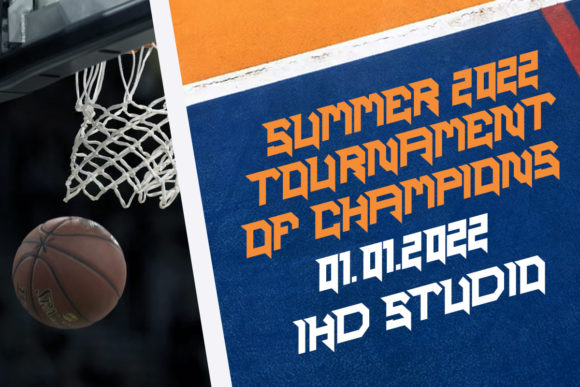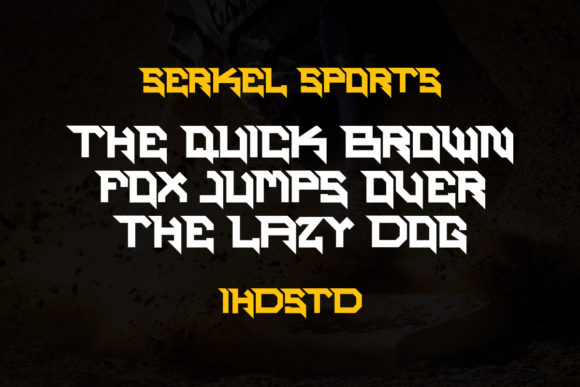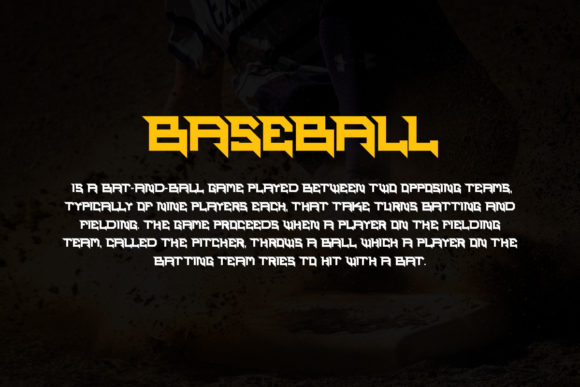
Introduction to Serkel Font
Serkel is a cool, bold and thick lettered display font.
Add it to any design that you want to highlight The only limit is your imagination.
Key Features of Serkel Font
Serkel Font offers exceptional quality and versatility, making it a valuable addition to your design toolkit. Whether you’re creating for personal projects or commercial use, Serkel Font delivers professional results.